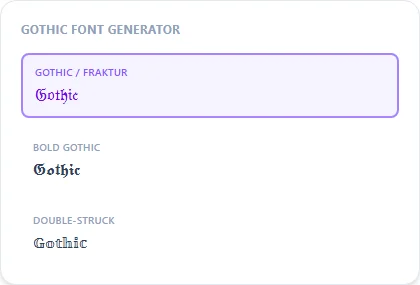
Gothic Font Generator
Gothic here means the traditional blackletter/Old English look: the heavy, angular lettering used on metal band logos, tattoos, and vintage newspaper mastheads.
This generator produces it as real Unicode text (Mathematical Fraktur), so it pastes anywhere instead of needing an actual font file.
Gothic Font Generator style examples: Gothic / Fraktur, Bold Gothic, Double-Struck, rendered on the word "Gothic"
Where the gothic look actually comes from
Blackletter lettering dates back to medieval European manuscripts and early printing presses, long before it became shorthand for 'metal' or 'edgy' online. Unicode's Fraktur block (part of Mathematical Alphanumeric Symbols) is a modern digitization of that same letterform tradition, which is why it's the standard substitution every gothic text generator uses, this one included.
Common uses: logos, tattoos, and usernames
Gothic text shows up most in band-logo mockups, tattoo lettering previews, and Discord or gaming usernames that want a heavier, darker feel than plain text. For a tattoo or printed logo, treat the generated text as a reference for the letterforms rather than a final design. A real artist will still need to hand-adjust spacing and line weight for the medium.
Is this the same as Old English font?
Yes — "gothic", "blackletter", and "Old English" all refer to the same lettering style, and this generator's Fraktur styles cover it.
Which is heavier, Gothic or Bold Gothic?
Bold Gothic (Bold Fraktur) has thicker strokes and reads better at small sizes; regular Gothic is more delicate and detailed.
Does gothic text support numbers?
No, the Fraktur Unicode block only defines letters, so numbers in your text pass through unstyled. This is a Unicode limitation shared by every gothic generator.
Is gothic text good for a metal band or gaming logo?
Yes, it's one of the most common uses — pair Bold Fraktur with the metal font generator page if you want glitch/distortion effects layered on top too.